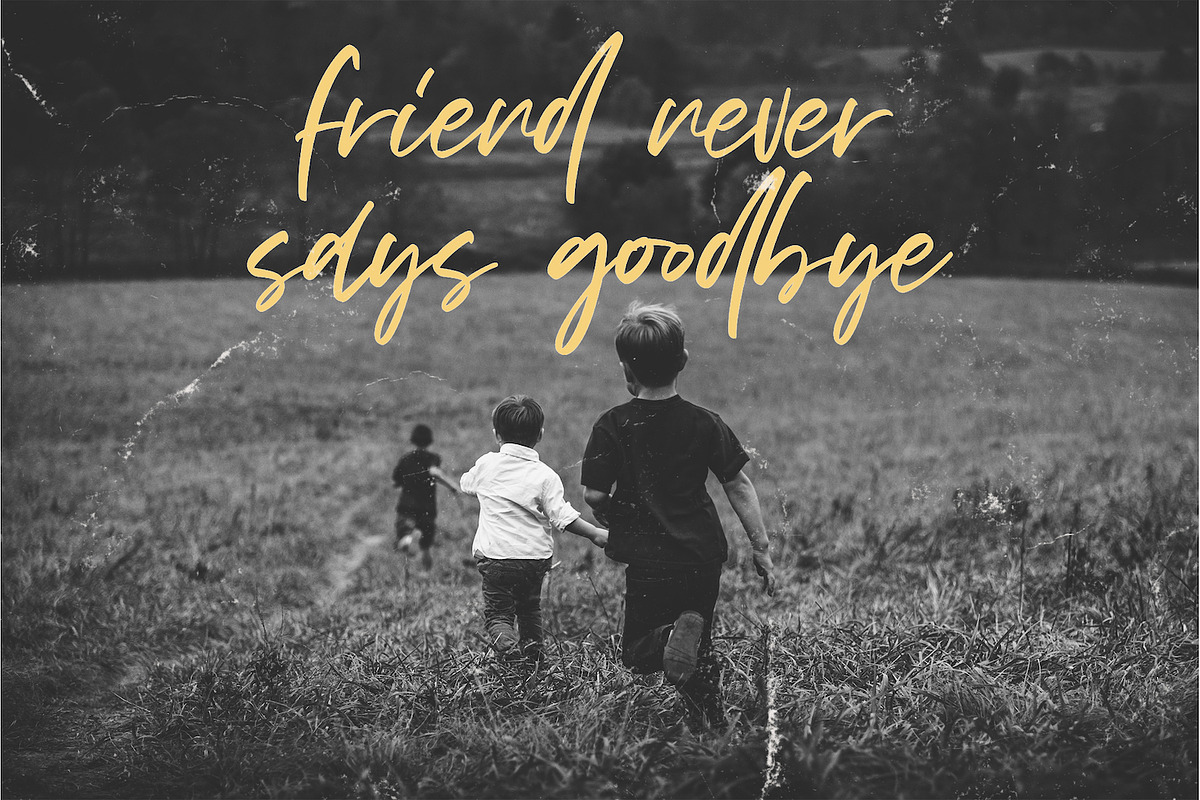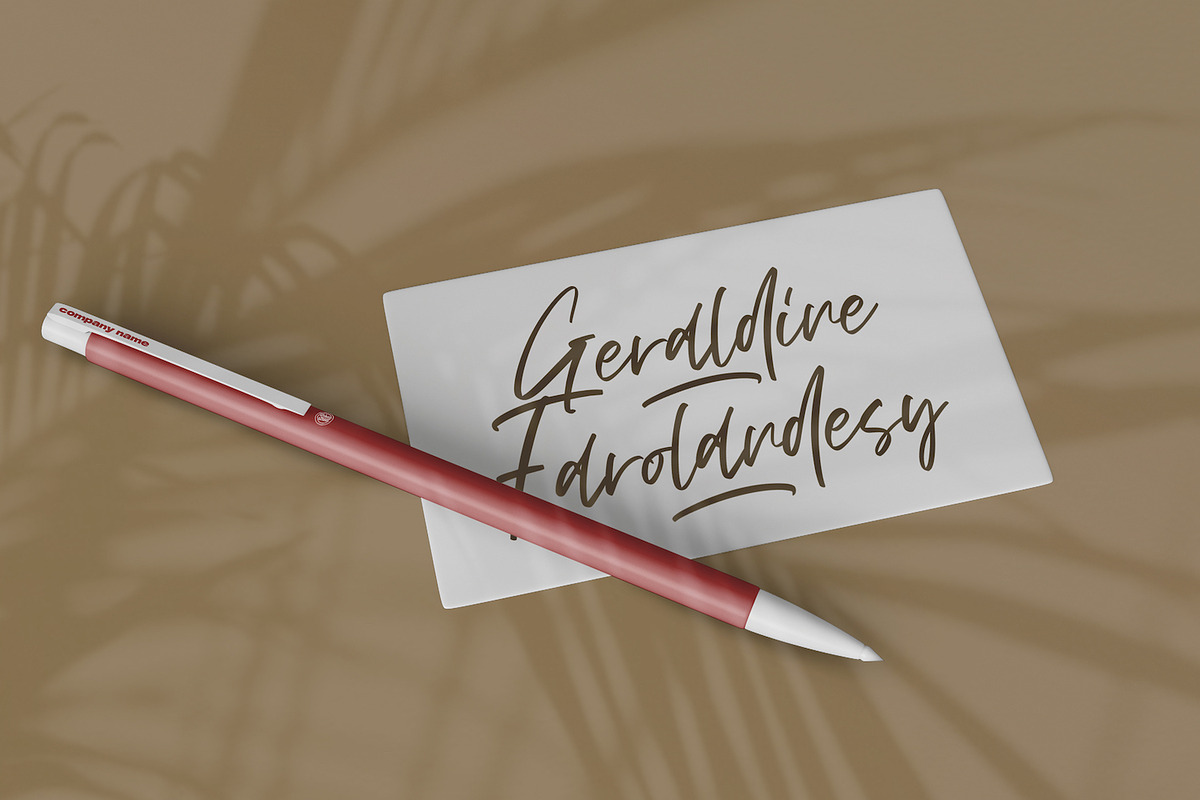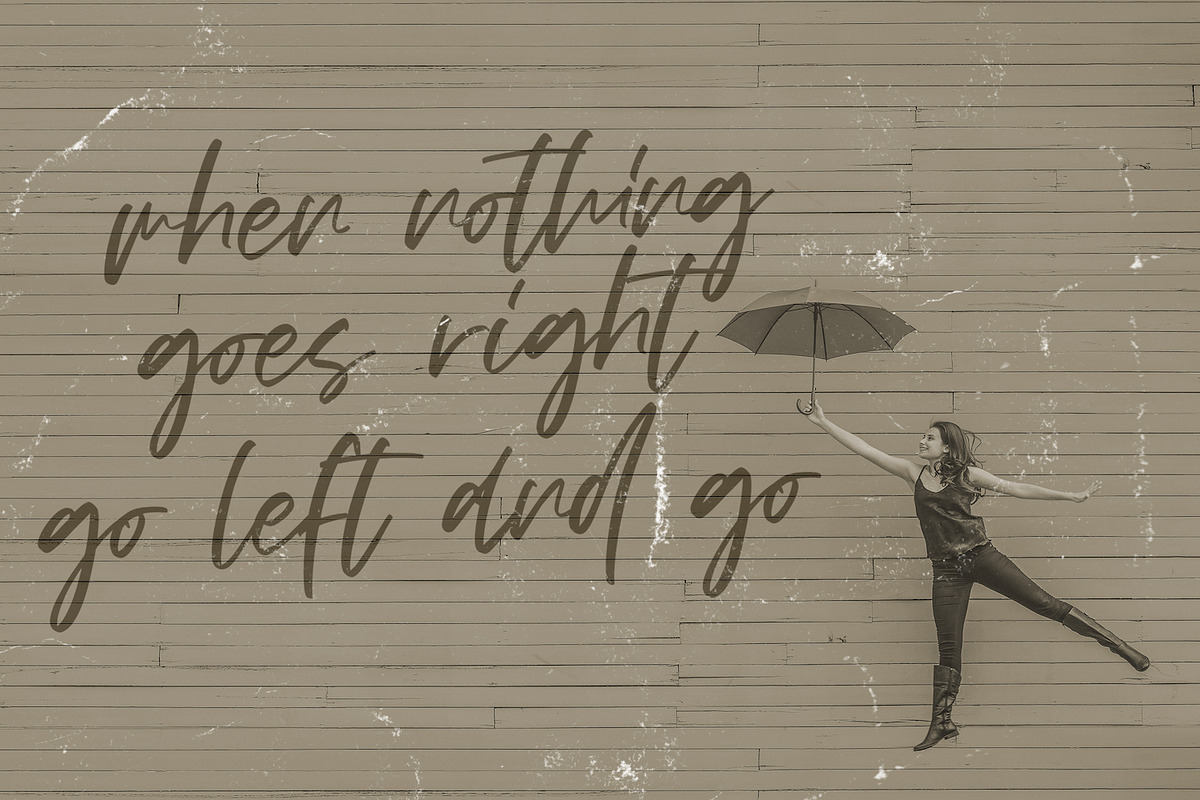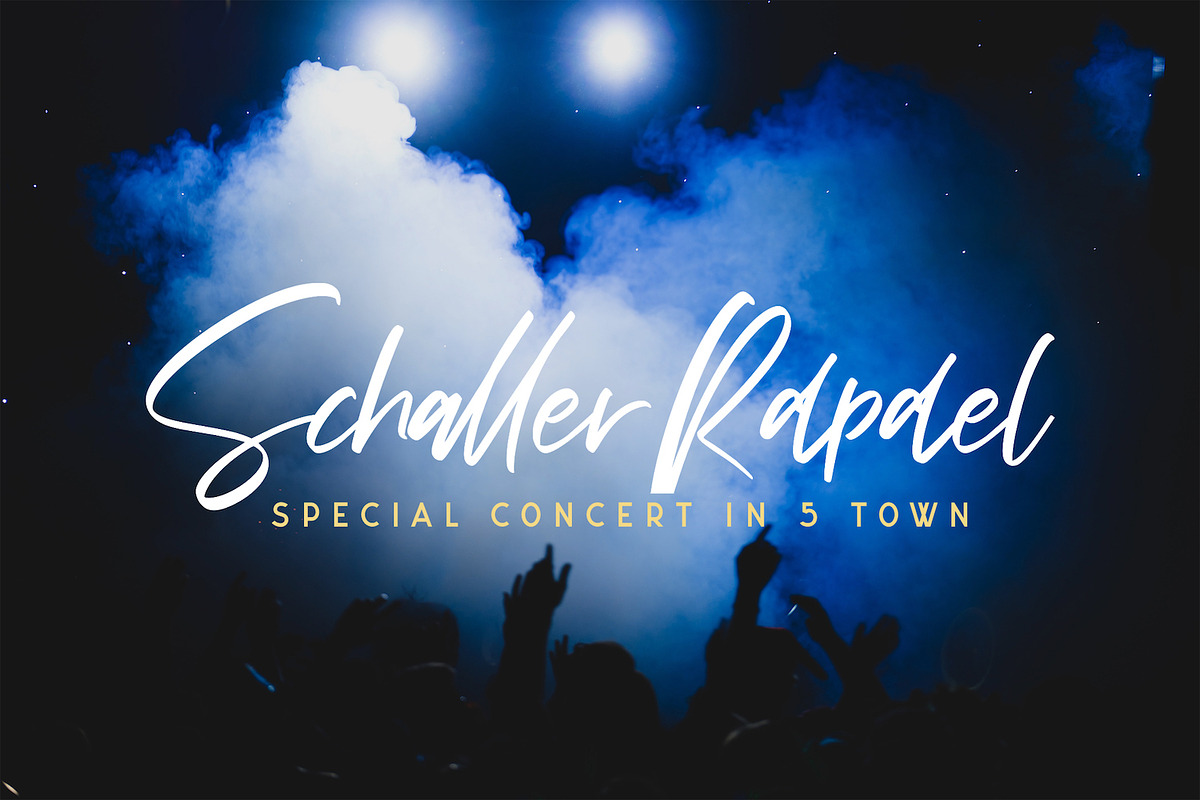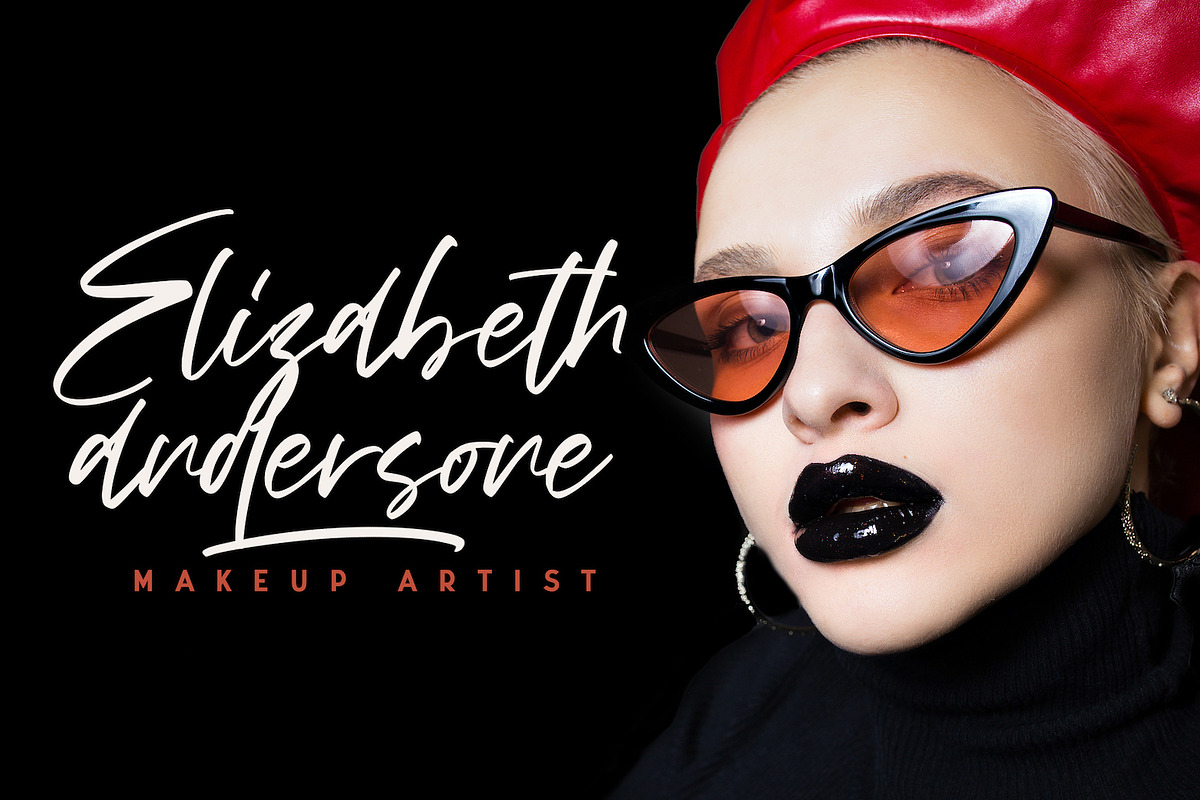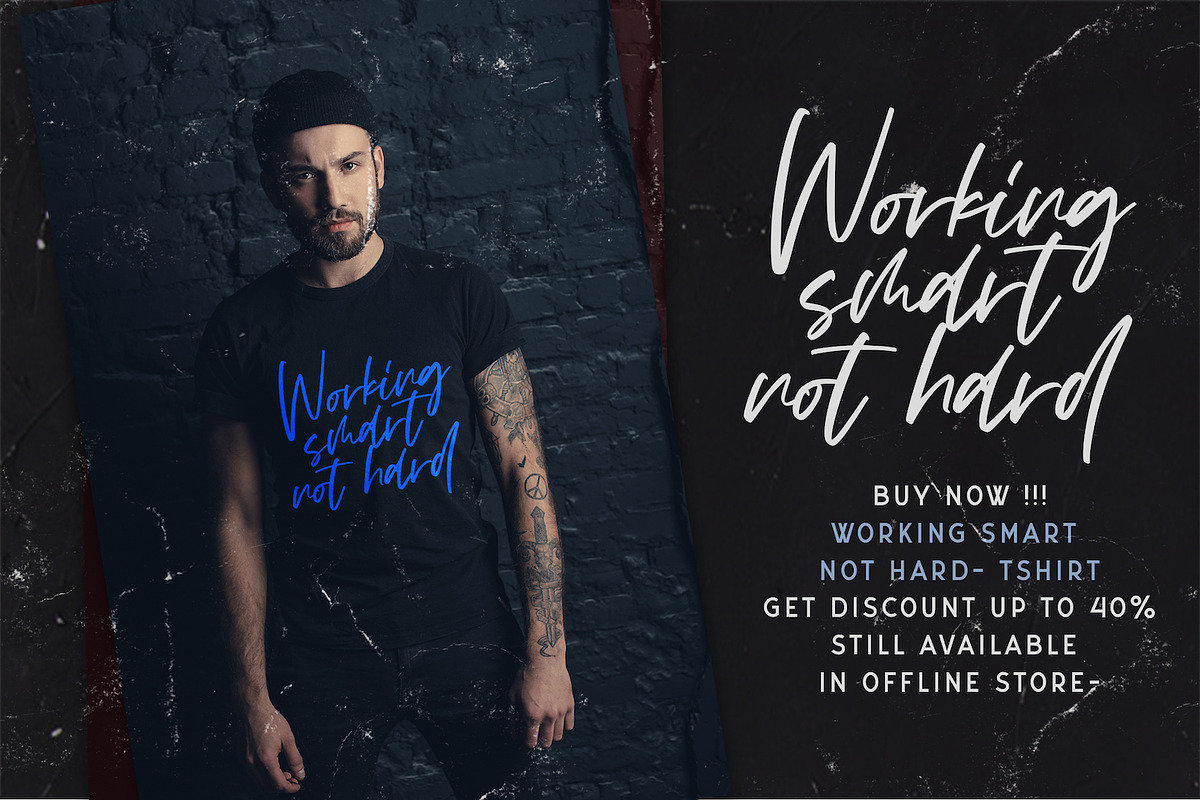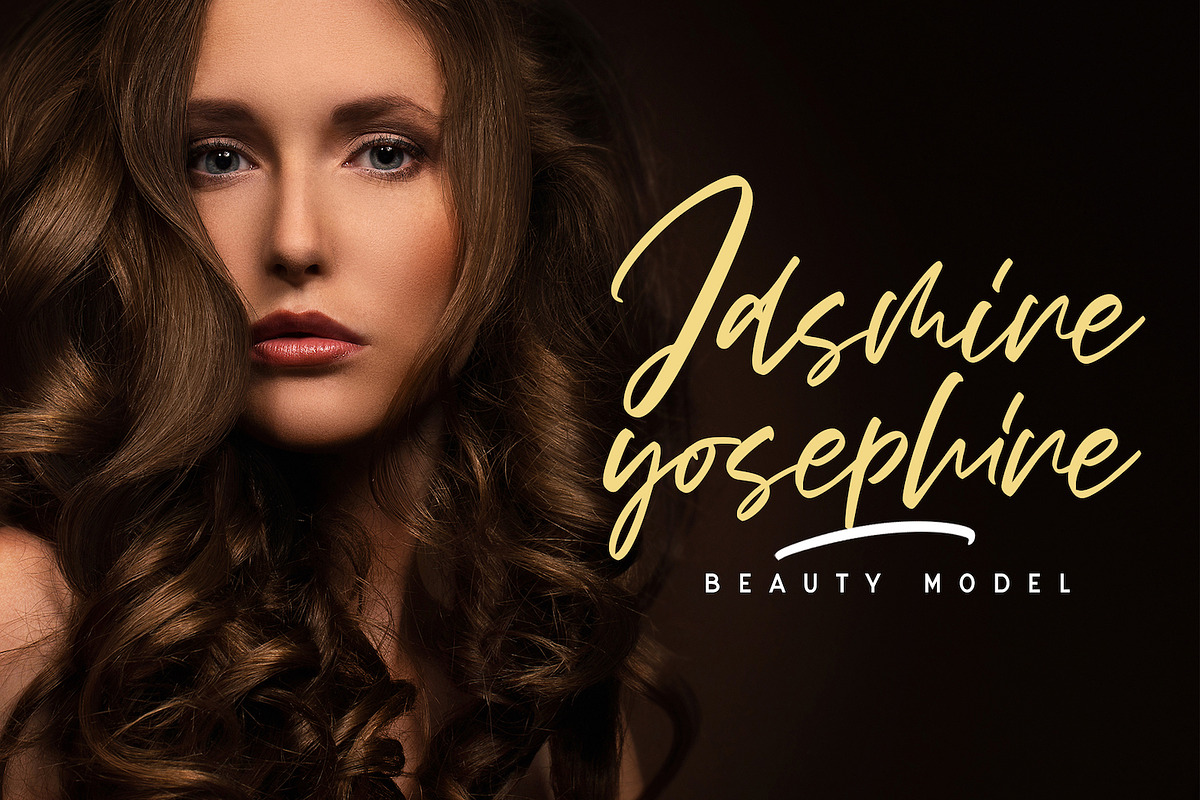
Vezthisory - Handwritten Font
Introducing Vezthisory - Handwritten Font
Vezthisory is a Script Font with Handwritten Style. The Vezthisory font made with digital brush pen strokes that making this font look authentic. This font is perfect for fashion brand, wedding invitation, business card, logo brand, signature, and then calligraphy.
- This Font contains Elegant, Creative, Luxury and has a Unique Concept.
Why Vezthisory - Handwritten Font is worth a look
Vezthisory - Handwritten Font by StringLabs fits naturally into Branding, posters, packaging, typography.